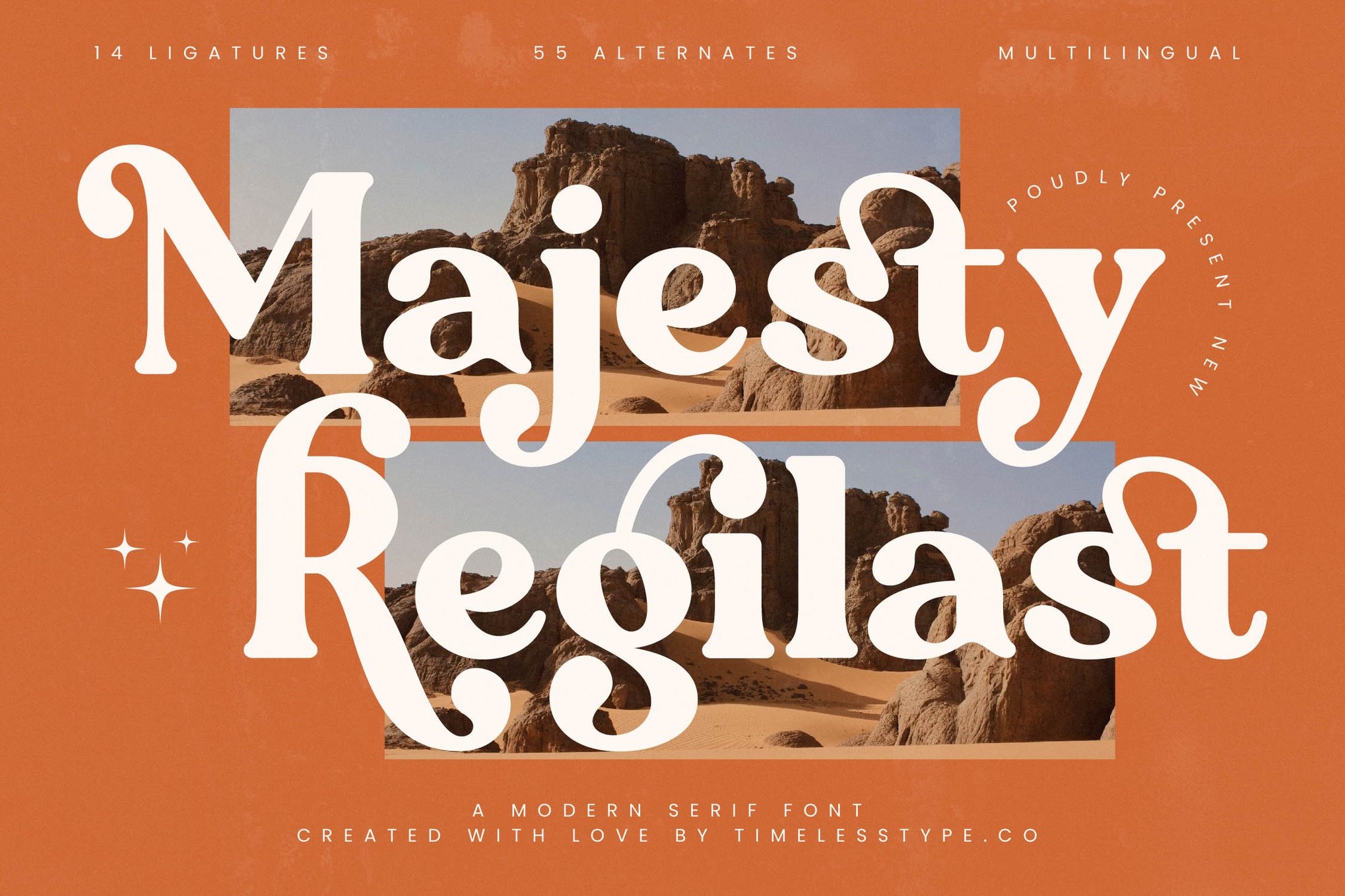
Majesty Regilast Font
Majesty Regilast Font is a premium-quality font developed to enhance your work with a polished, modern, and visually elevated look. Majesty Regilast is a modern serif typeface with bold curves, expressive swashes, and refined ligatures that create a luxurious visual presence. Its sculpted letterforms blend classic serif elegance with contemporary personality, making it ideal for branding, editorial headlines, packaging, and high-impact display compositions. With extensive alternates and multilingual support, this font offers strong versatility for premium design work.